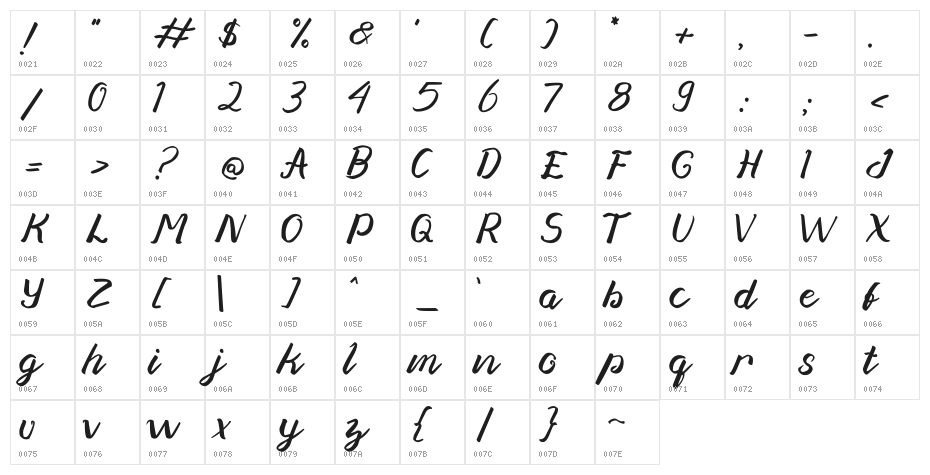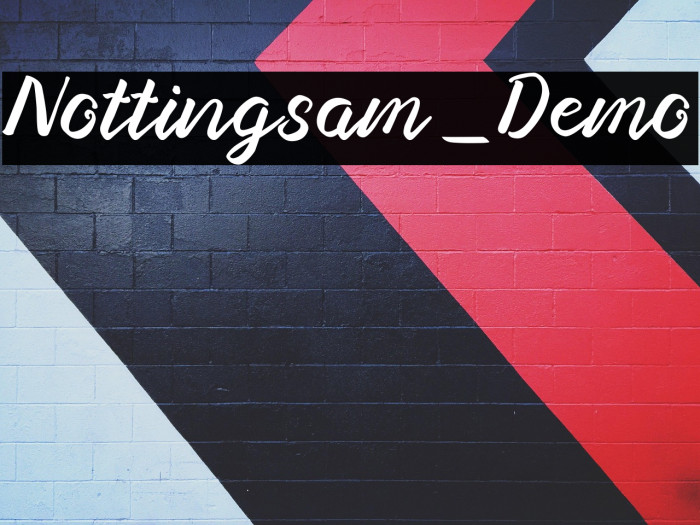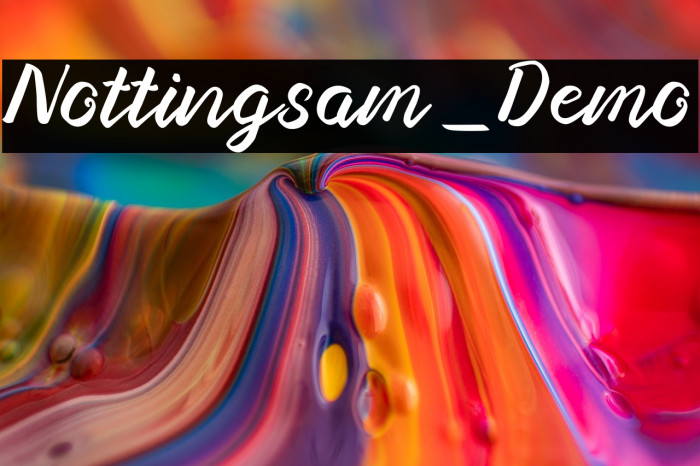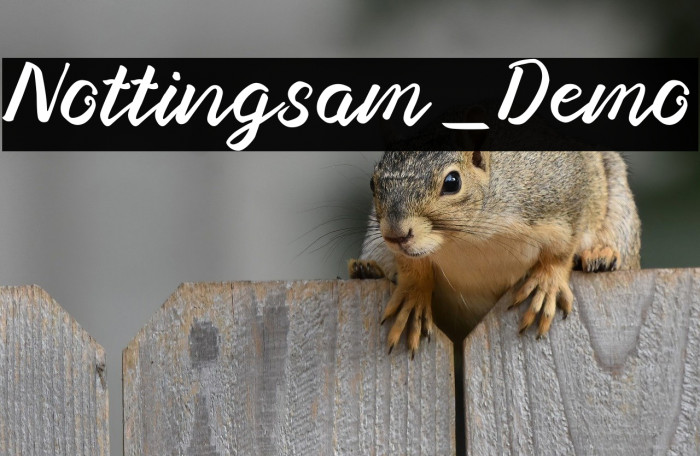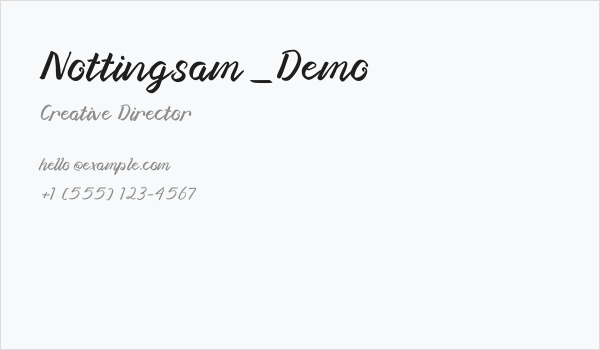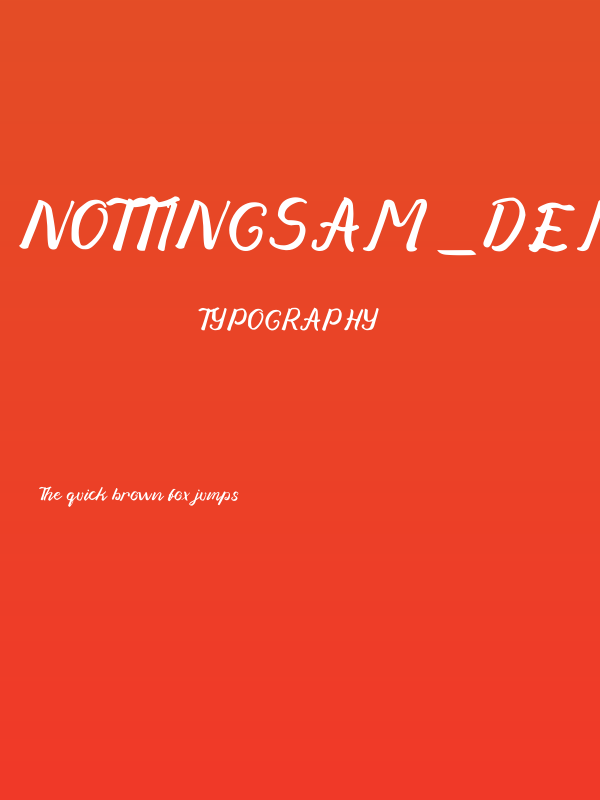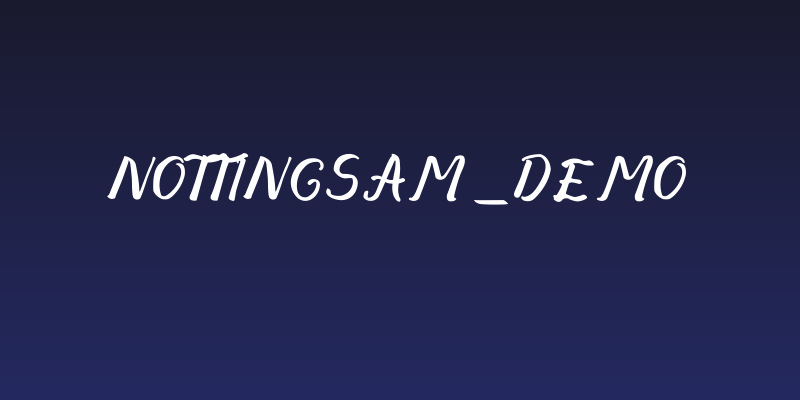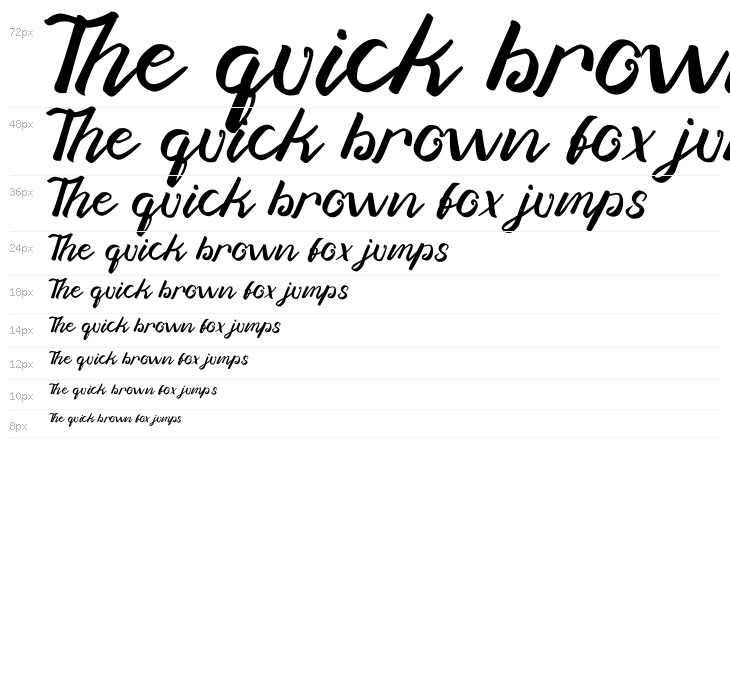
Nottingsam_Demo Font
Nottingsam_Demo Description
This font features a dynamic and fluid script style, characterized by its elegant and flowing letterforms. Each character is crafted with a sense of movement, giving the text a lively and expressive appearance. The uppercase letters maintain a consistent height, while the lowercase letters exhibit a slight slant, enhancing the cursive feel. The numerals and special characters are designed to complement the overall aesthetic, maintaining the same fluidity and grace. This font is ideal for projects that require a personal touch or a sense of sophistication.
| Proposed Projects | Ideal for wedding invitations, greeting cards, personal branding, and elegant packaging designs. |